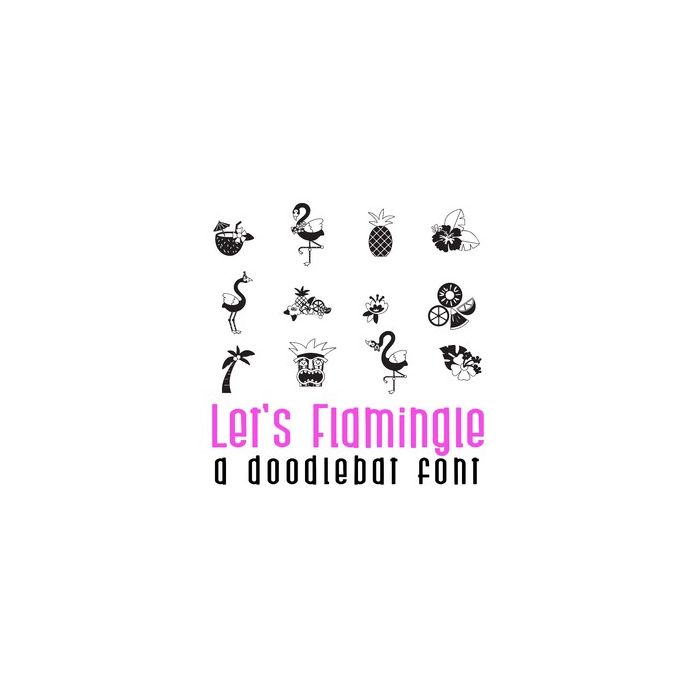
This fun doodlebat font features 30 adorable flamingo and love images. Perfect for cards, crafts, gifts, decor, scrapbook pages, planner stickers, and more! Glyphs are A-Z and 0-3